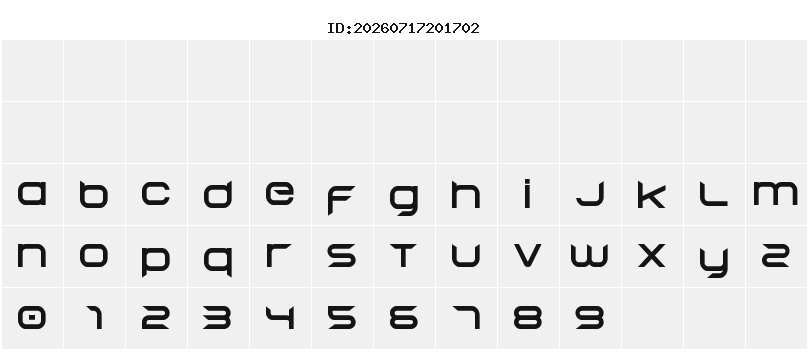
• Font Name: Begok v15
• Designer: Carlos Matteoli a.k.a. Qbotype
About Begok v15.ttf
Begok v15.ttf is a modern, elegant sans-serif font designed for ultimate readability and visual harmony. Perfect for branding, headlines, web design, and print materials.